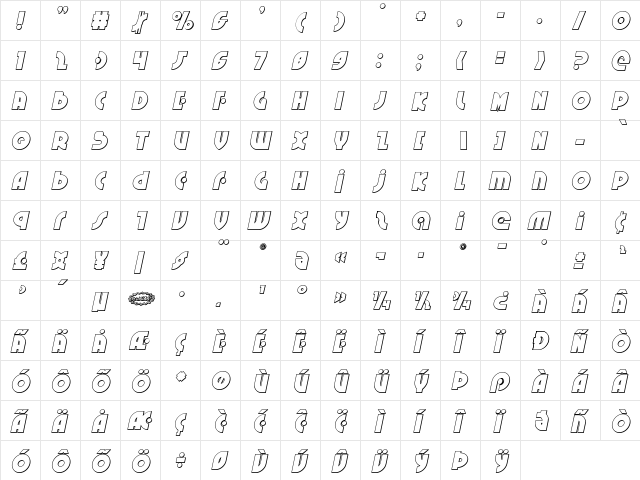
Neuralnomicon Outline Italic Outline Italic
Design Context for Neuralnomicon Outline Italic Typeface
Neuralnomicon Outline Italic brings ornamental detail and strong personality to headlines and identities, where visual impact matters more than quiet functionality. Its italic angle brings a sense of urgency and motion to the letterforms.
Font Pairing: Pair with a clean neutral sans-serif for body copy to let Neuralnomicon Outline Italic's character lead without overwhelming the composition.
Pro Tip: Treat Neuralnomicon Outline Italic as the centrepiece of your typographic hierarchy. One strong heading set in a decorative face can carry an entire layout.